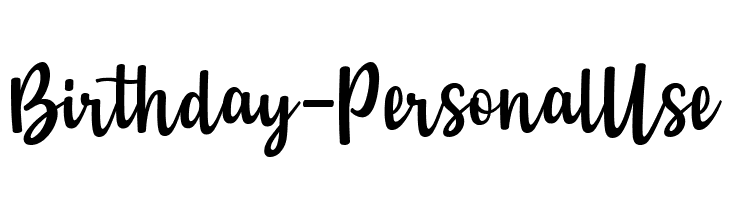
( Fonts by Paul Lloyd )
A bold and artistic font with a blend of sharp and smooth lines.
( Fonts by Paul Lloyd )
An elongated, high-contrast serif font with a sophisticated and decorative style.
An elegant script font with fluid, cursive strokes and sophisticated flourishes.
( Fonts by Paul Lloyd )
A bold serif font with sharp angles and high contrast, blending classic and modern styles.
( Fonts by Paul Lloyd )
An elegant and refined font with tall, narrow uppercase letters and uniquely styled numerals.
( Fonts by Paul Lloyd )
A bold, high-contrast serif font with decorative elements and sharp serifs.
( Fonts by Paul Lloyd )
An elongated, elegant font with decorative elements and refined letterforms.
( Kayleigh Anna Design )
A bold, handwritten font with a playful and informal style.